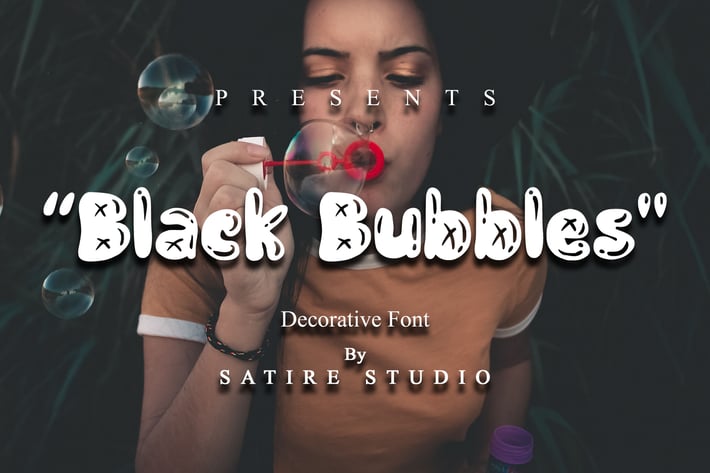
Black Bubbles - Decorative Font
Black Bubbles | Decorative Font, So beautiful on invitation like greeting cards, branding materials, business cards, quotes, posters, and more!